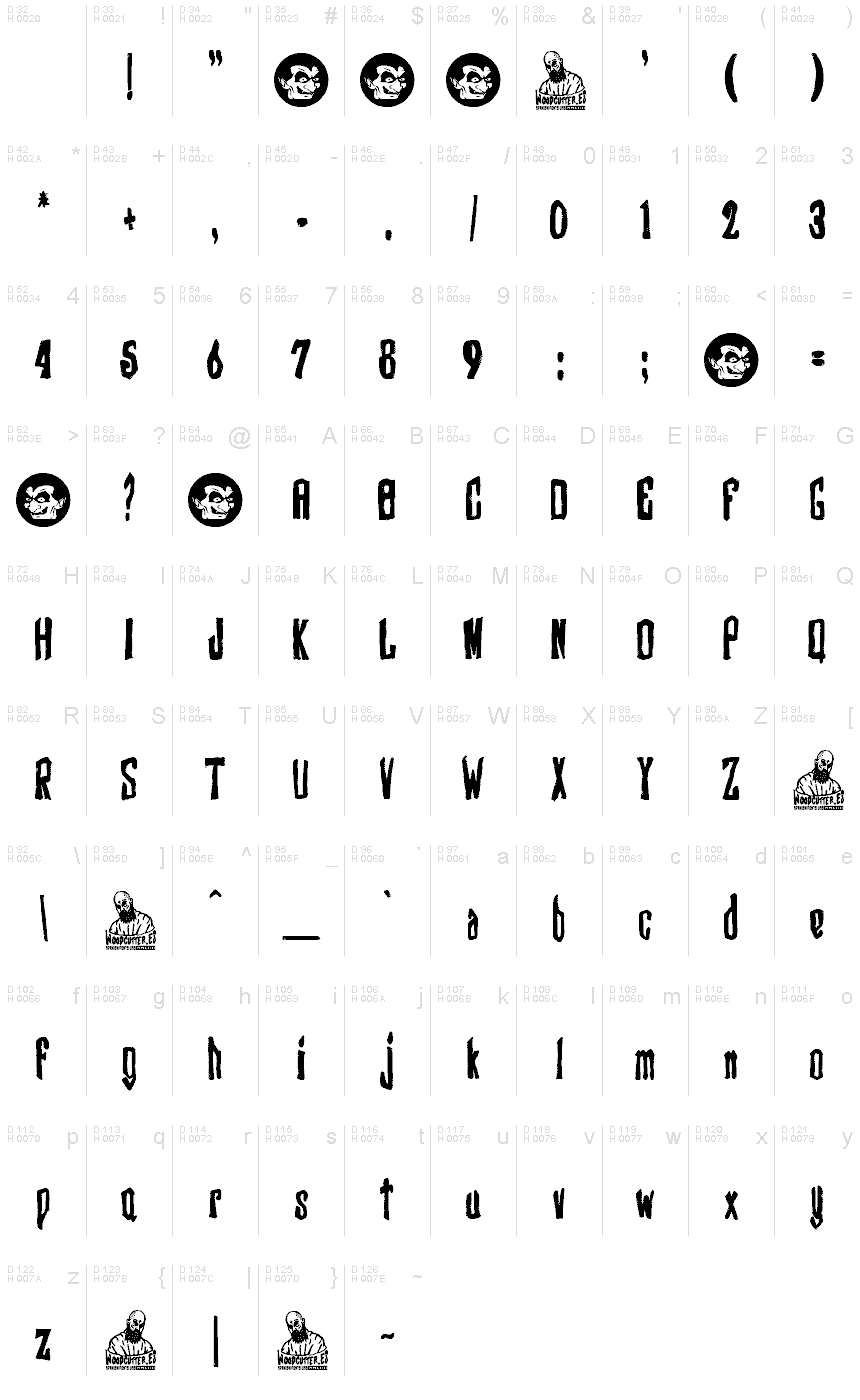
The Democratic Vampires
The Democratic Vampires font by Woodcutter is a grunge style, distressed font presenting an intriguing eerie vibe. This condensed-width display font has an eroded style that gives it a vintage feel with some incredibly strong gothic influence. The typeface is suitable for use in both print and digital design.